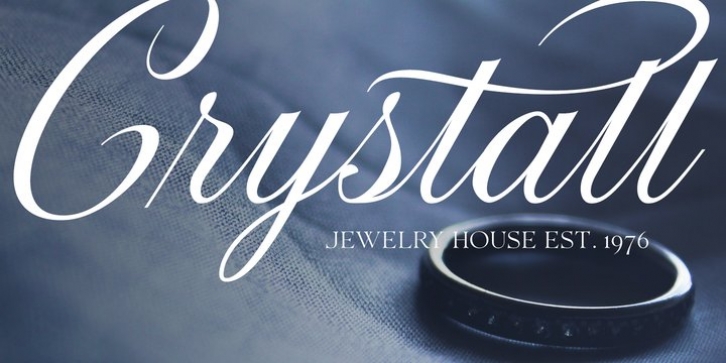
Parliament Font Family was designed by Pavel Larin, and and published by Larin Type Co. Parliament contains 3 styles and family package options.
Parliament includes a monumental serif and a calligraphy script.
The Serif font is contracting and elegant, will emphasize your taste and impress with its sophistication and simplicity.
The calligraphic Script is elegant, beautiful and carefully assembled, he includes many alternates for uppercase and lowercase as well as swashes.
Script and Serif looks great both separately and together and they will be a wonderful addition to your font library.This font is easy to use has OpenType features and all characters in this font have PUA encoding.
Full alphabet with Uppercase and Lowercase A-z for Script
Full Capital alphabet A-Z for Serif
Numbers, fractions for Script and Serif
Punctuation and symbols for Script and Serif
Alternates for Serif "Q, K, R, ampersand"
Alternates uppercase for Script
Alternates lowercase for Script
Ligatures for Script "ff, oh, ol, ok, or, os"
Swashes for Script